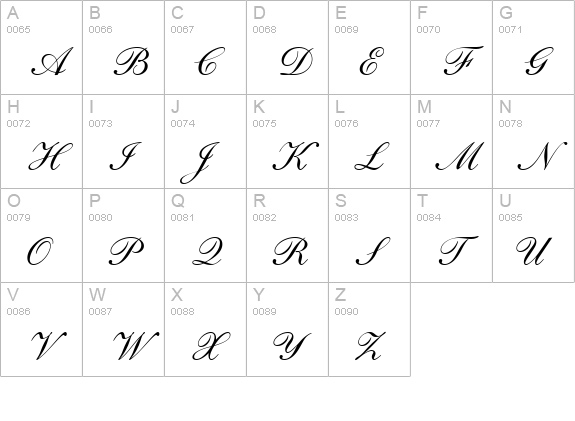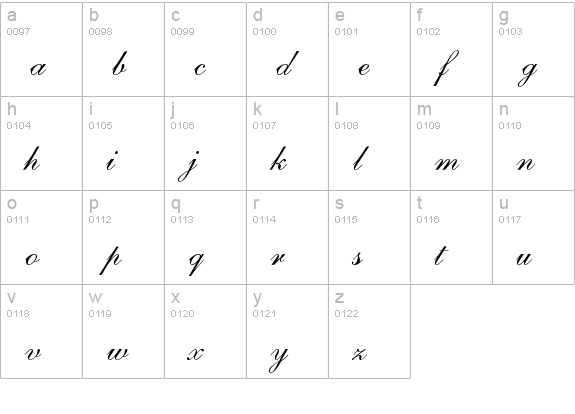
Shelley Andante BT is a stunning font that effortlessly combines elegance and charm. With its graceful curves and timeless appeal, this font is a true masterpiece. It is the perfect choice for projects that require a touch of sophistication and sophistication. One of the greatest aspects of Shelley Andante BT is that it is free to download. Yes, you read that right! This exquisite font is freely available to download at FontsMarket.com. Now, you can add this beautiful font to your collection without any cost. It's a fantastic opportunity to enhance your designs without breaking the bank. Whether you are working on a wedding invitation, a branding project, or a logo design, Shelley Andante BT will elevate your work to new heights. Its smooth and flowing letterforms add a sense of fluidity and grace, making each word a visual delight. Furthermore, Shelley Andante BT is incredibly versatile. It can be used in both digital and print mediums, ensuring that your designs will look stunning no matter the context. Its legibility and readability make it a reliable choice for any project, while its unique style sets it apart from the crowd. Don't miss out on the opportunity to enhance your designs with the captivating beauty of Shelley Andante BT. Download it for free at FontsMarket.com and let your creativity soar.